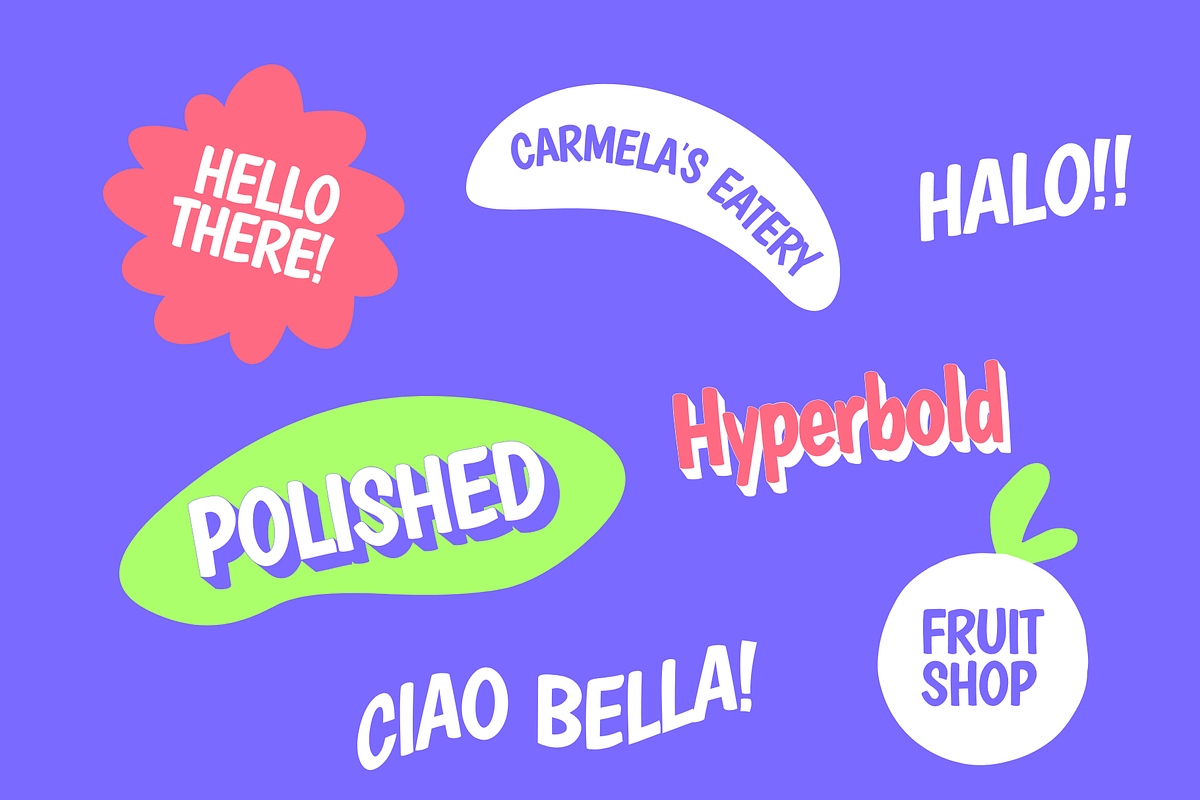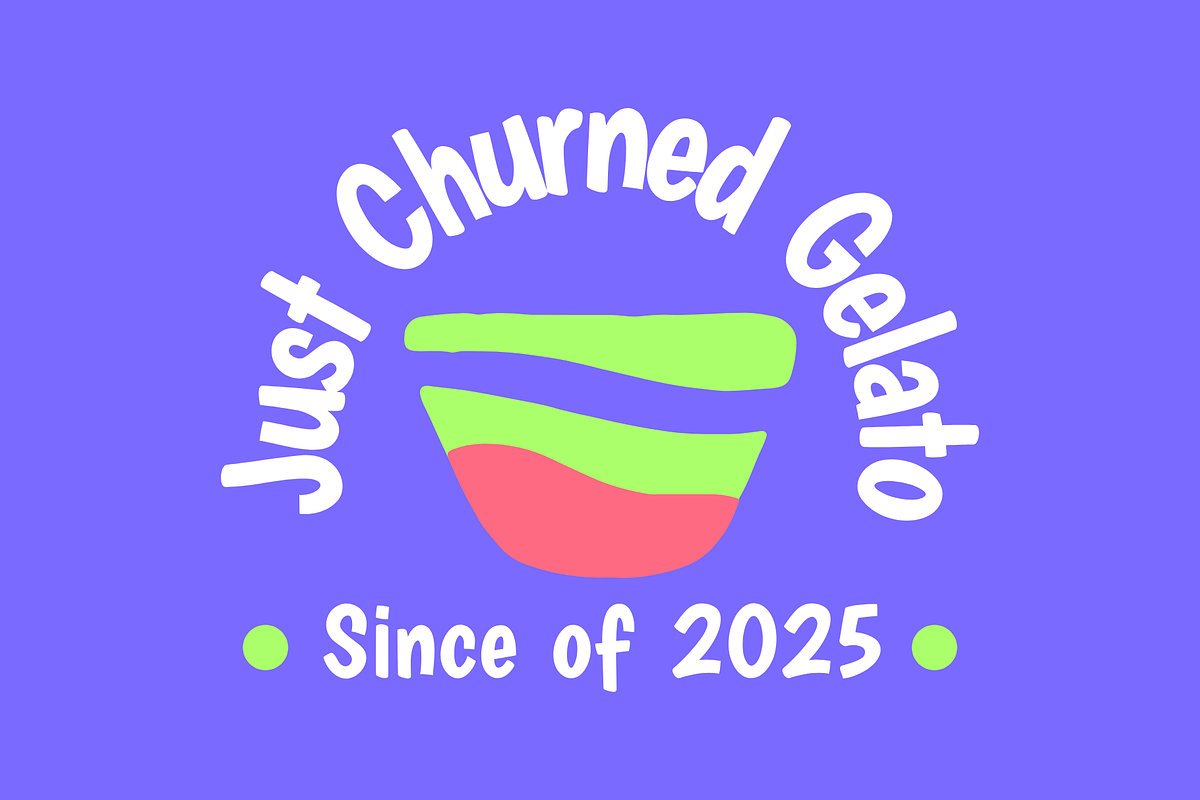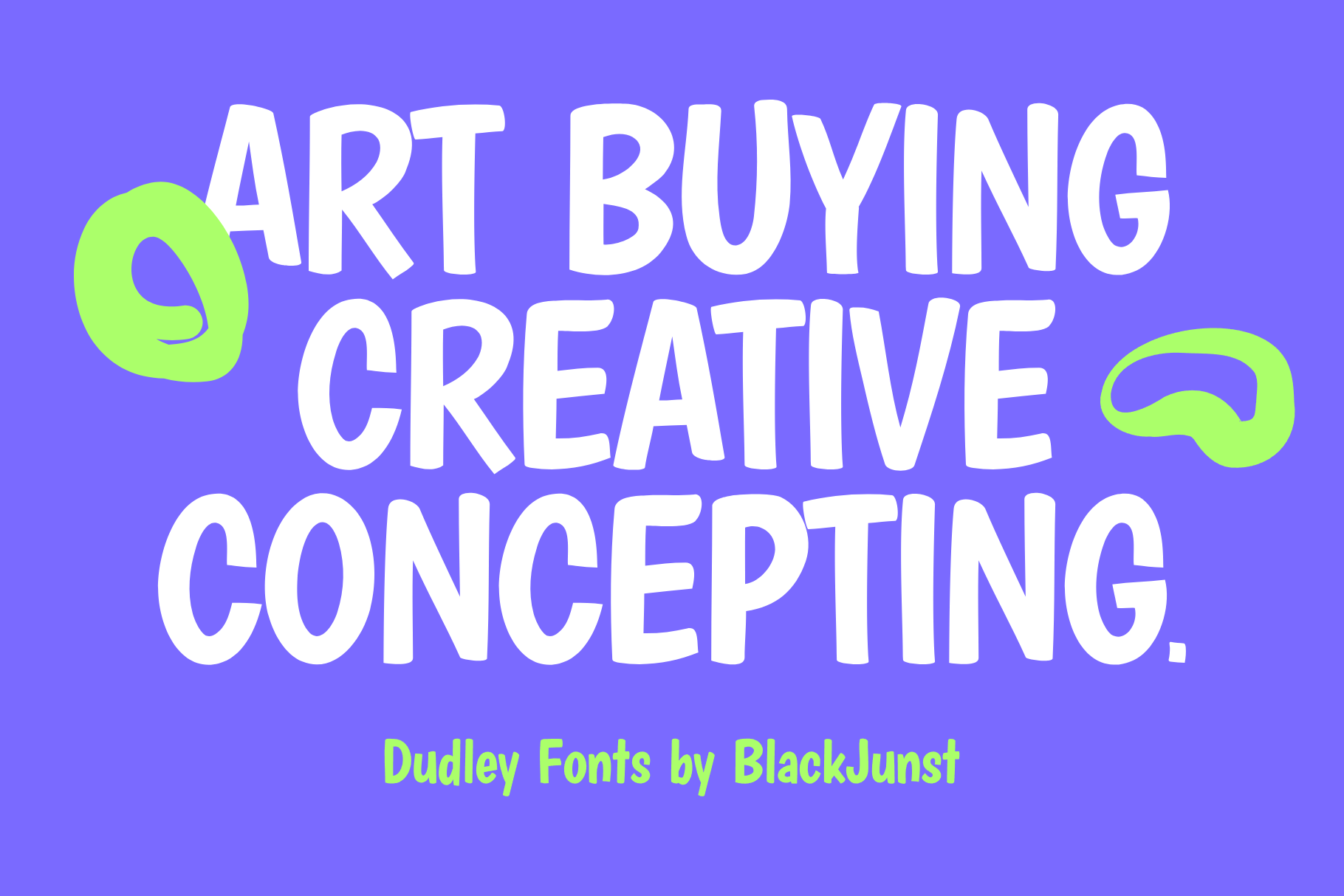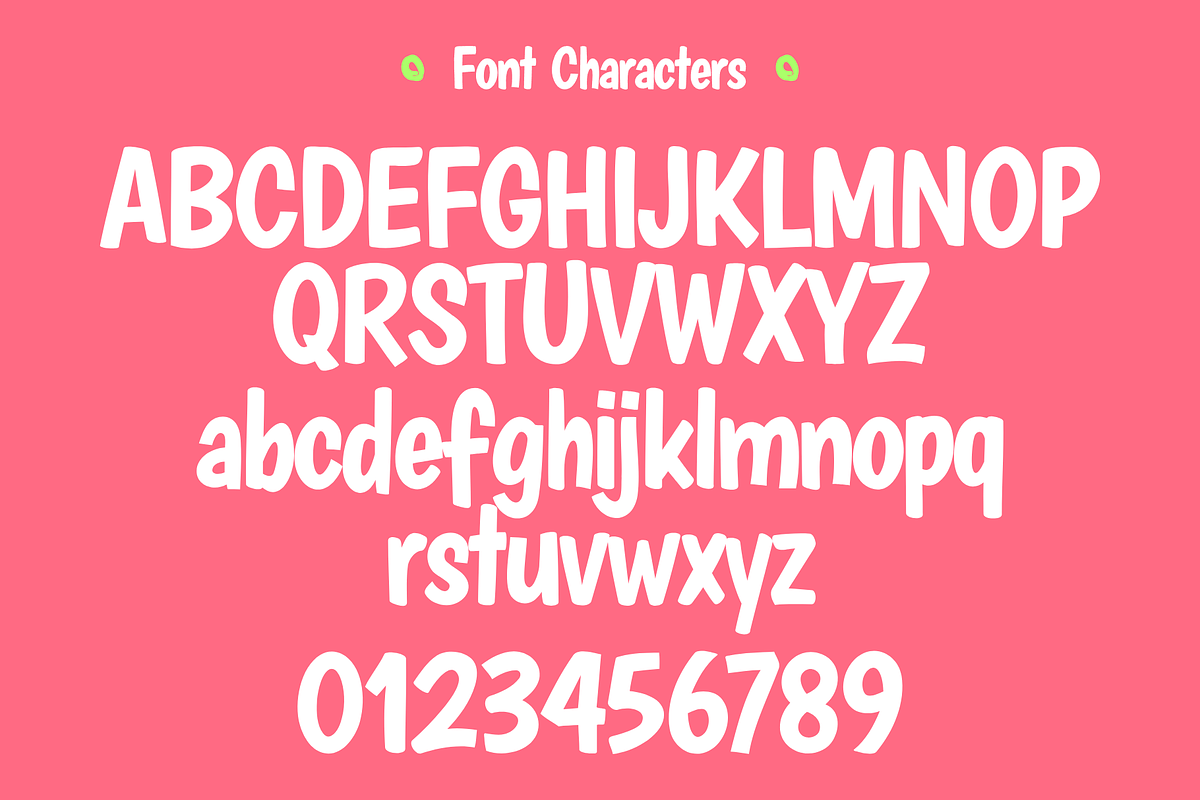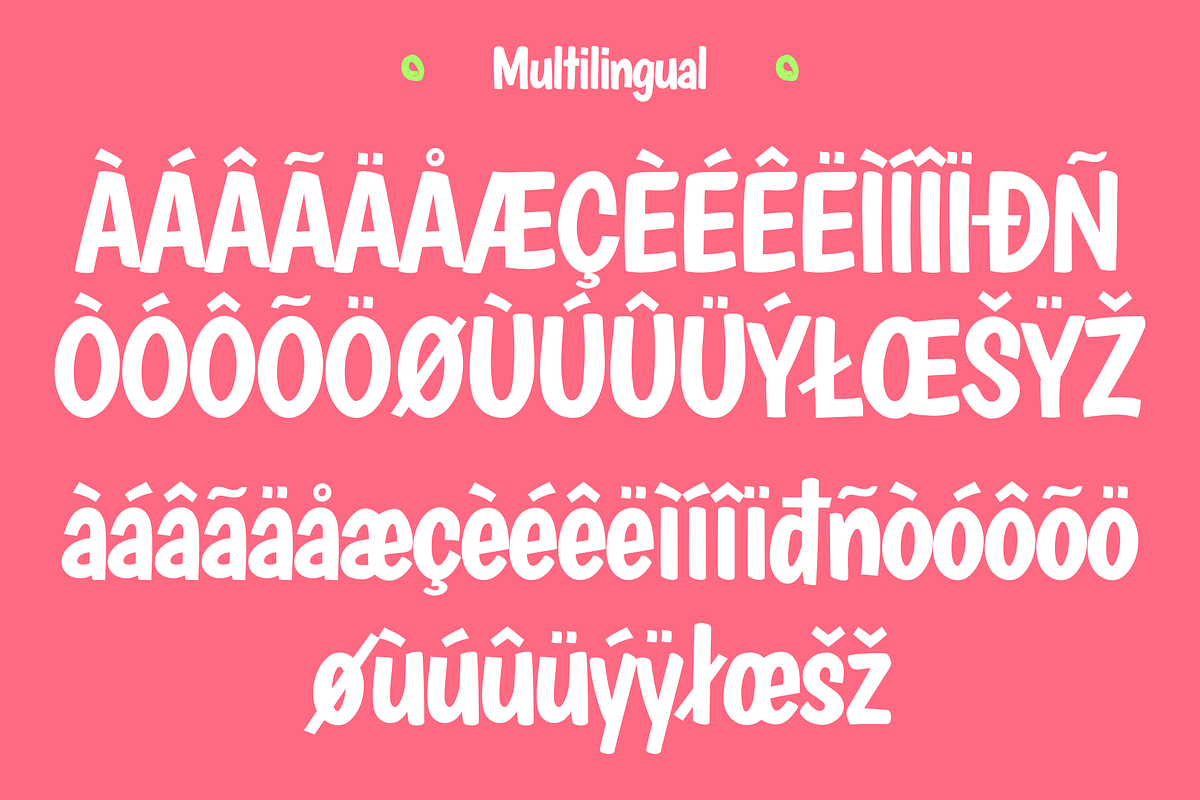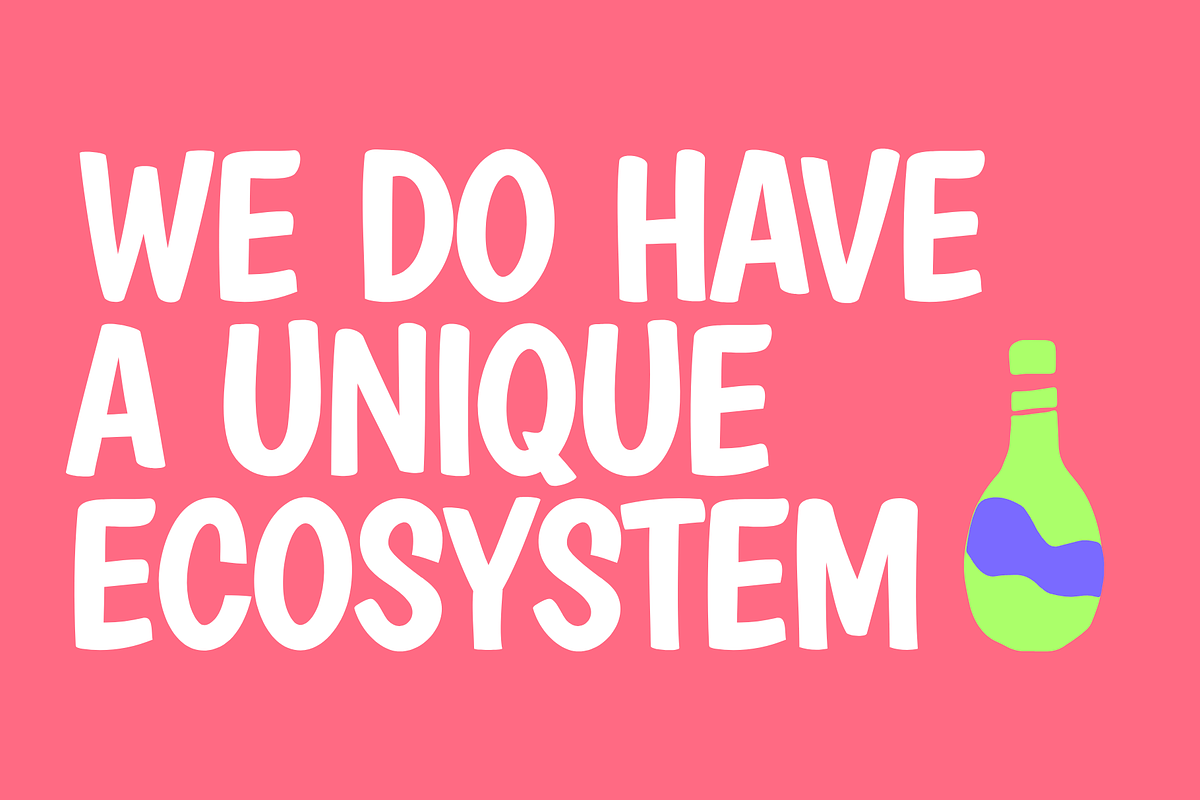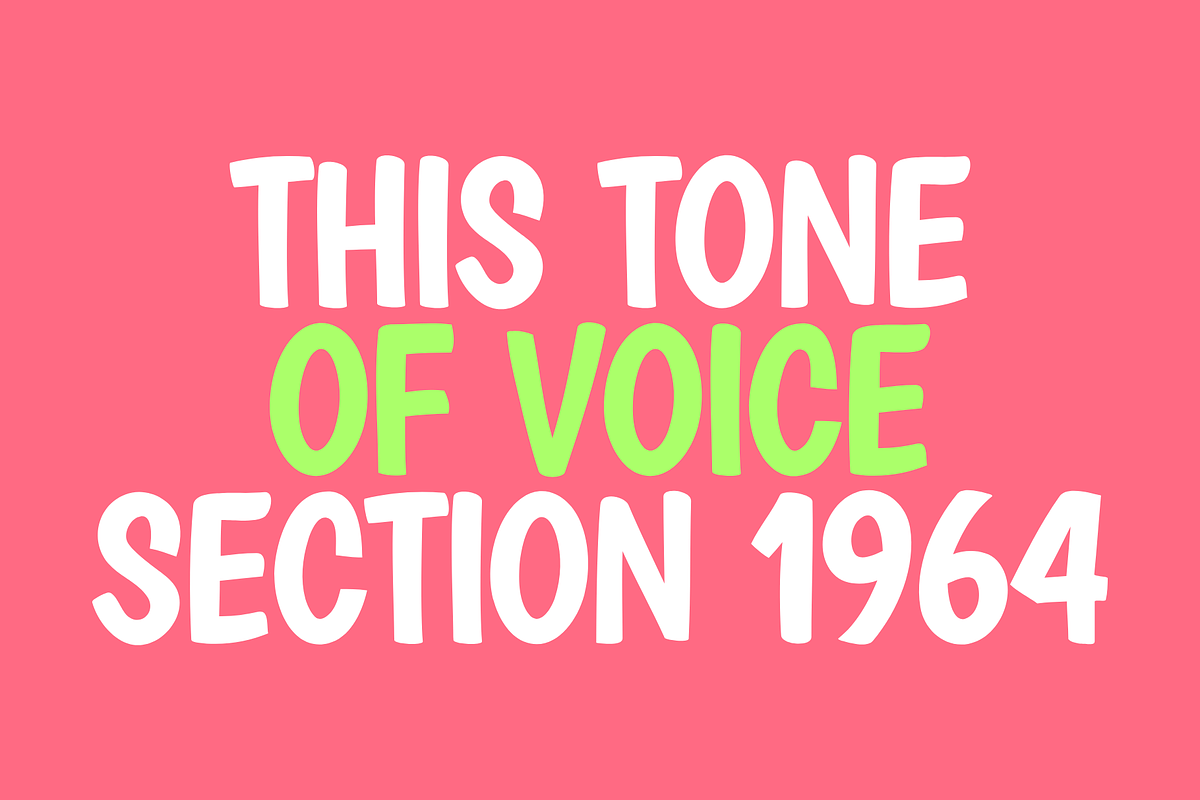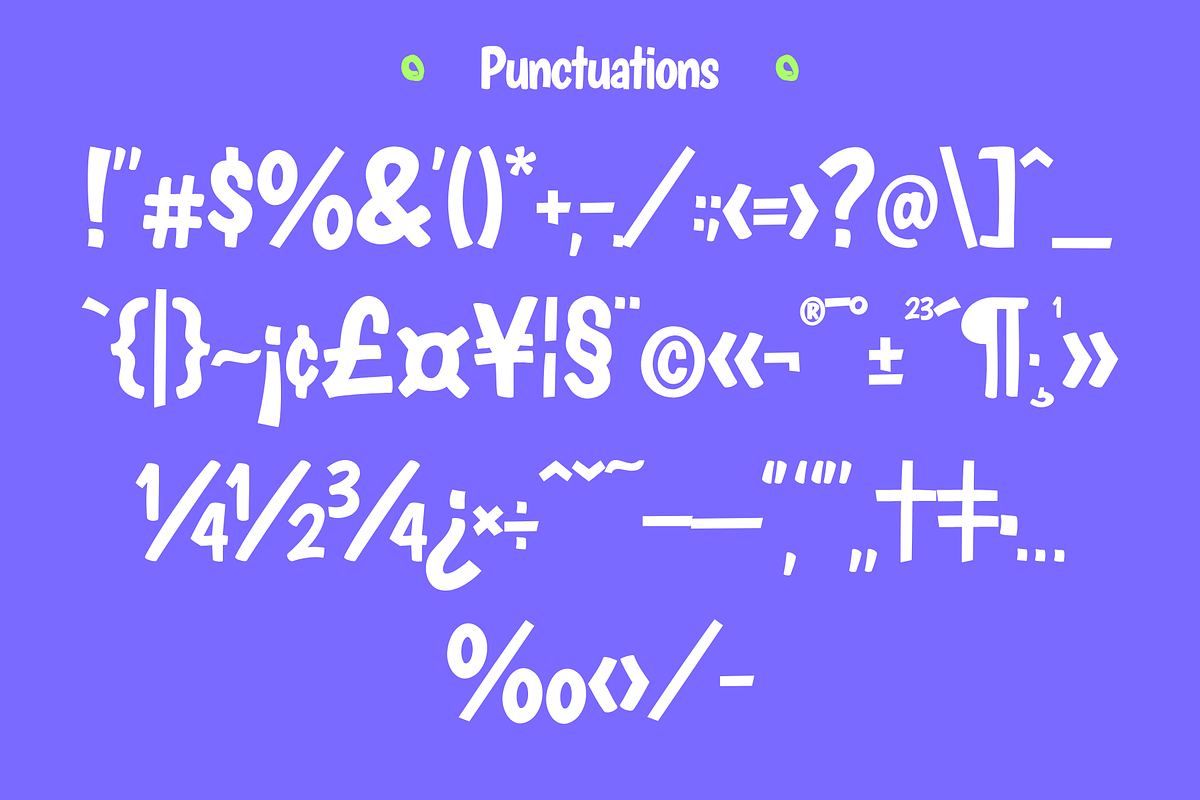
Dudley - Bold Handwritten Font
Dudley – Playful & Bold Handwritten Font
Introducing Dudley, a fun and expressive handwritten font crafted with bold strokes and a lively personality. Its rounded, bouncy letters and quirky shapes make it a perfect choice for playful branding, kids’ content, educational materials, or any design that needs a cheerful, energetic touch.
Whether you're working on packaging, posters, greeting cards, or social media graphics, Dudley brings a fresh and creative vibe that grabs attention and leaves a friendly impression.
Let your ideas pop with Dudley – because creativity should be bold and fun.